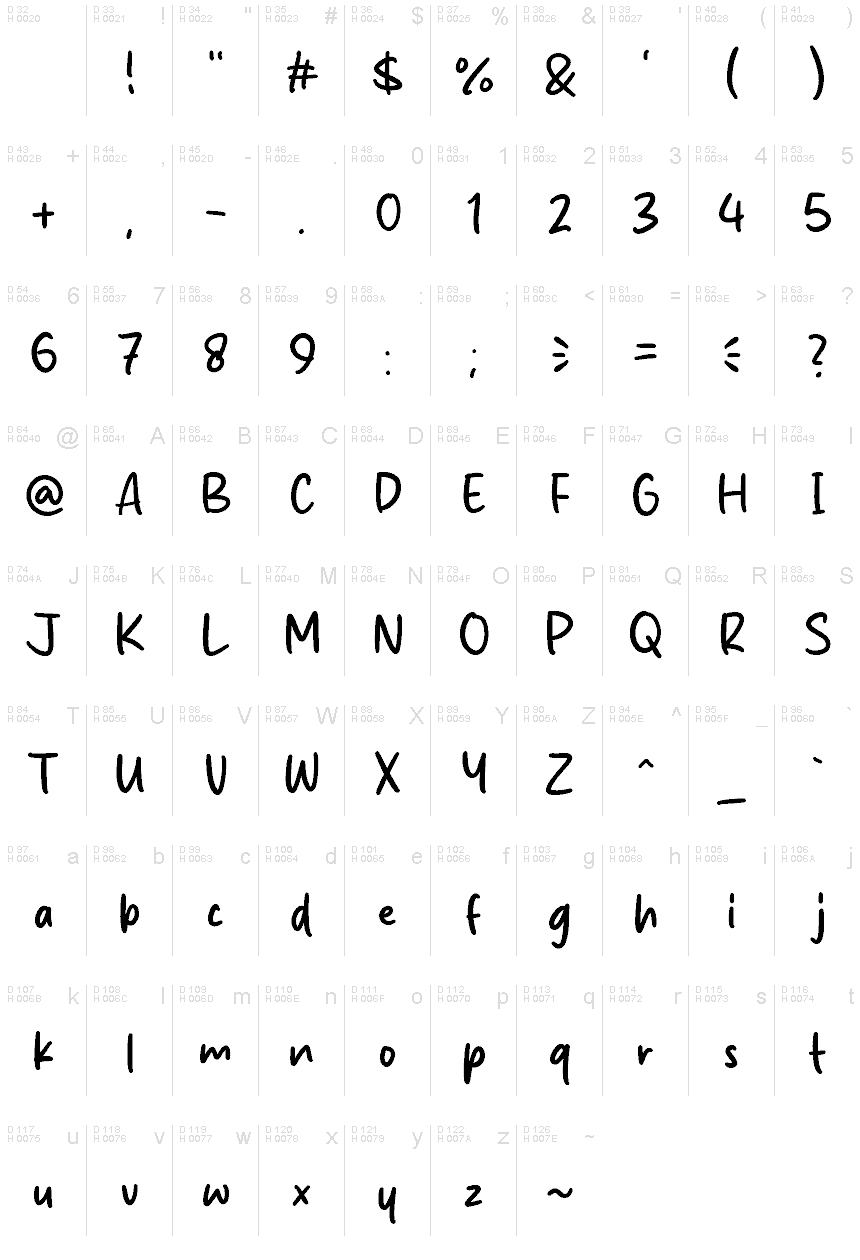
Monstrous Fish
Monstrous Fish font by MJType brings a handwritten feel to your designs. This free handwritten font has a casual elegance that reflects the impeccable style of every character with its organic flow. The expressive design is moderate yet emphasizes a contemporary vibe that stands out for the audience no matter where it is used.
To take advantage of the font, use it for greeting and Christmas cards, invitations and designs on wooden frames. Other uses include mugs, business cards, branding and packaging ideas as well as restaurants or coffee shops menus. All of these can refer back to an online platform whether it’s the website or social media page since the font can also be used on both.